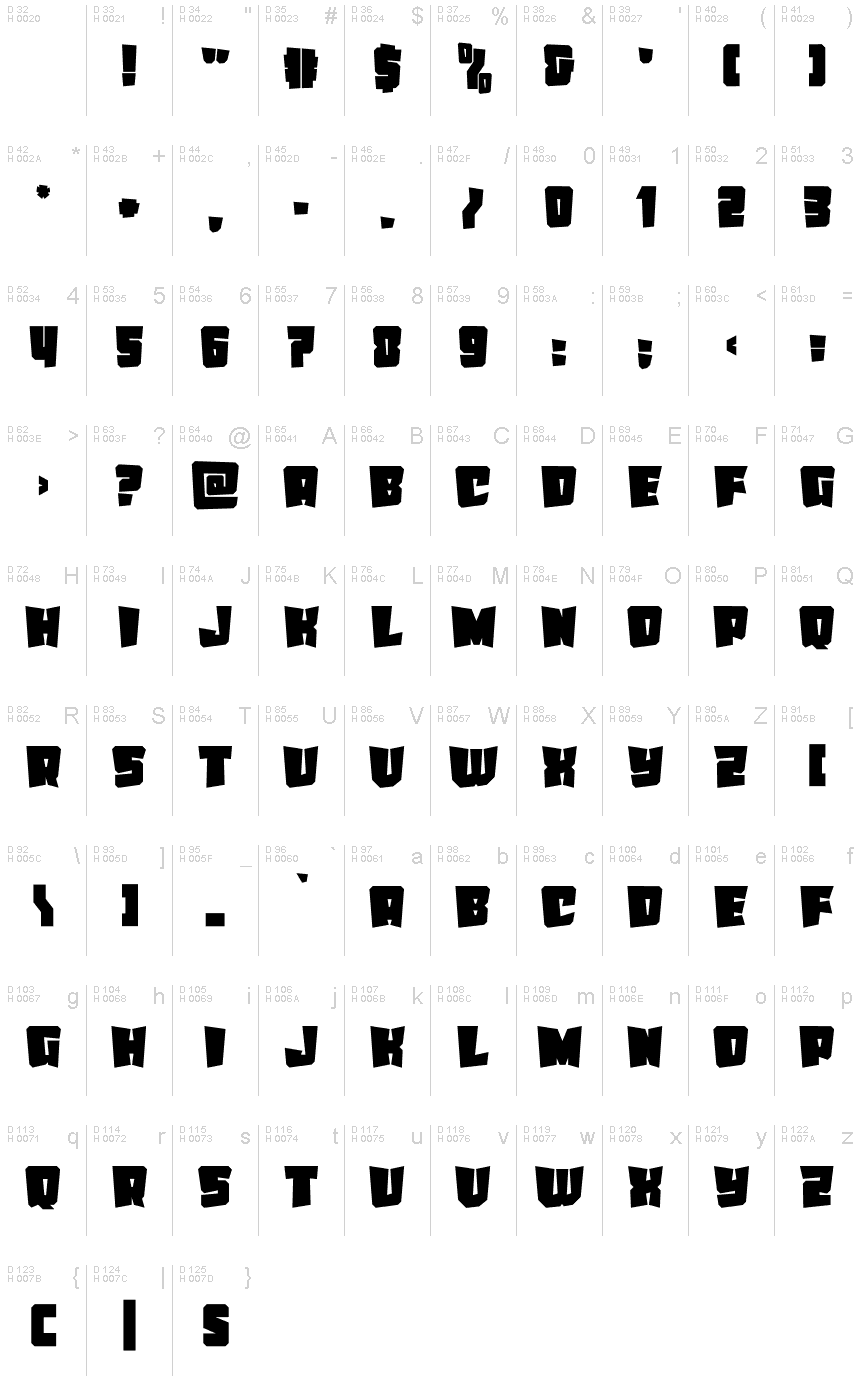
Rolling
Rolling is a cool, unique, and quirky display font designed by Erik Sudio, featuring bold and daring characters for a spectacular look! Add this chunky lettered font to your designs, and notice how it makes them come alive!